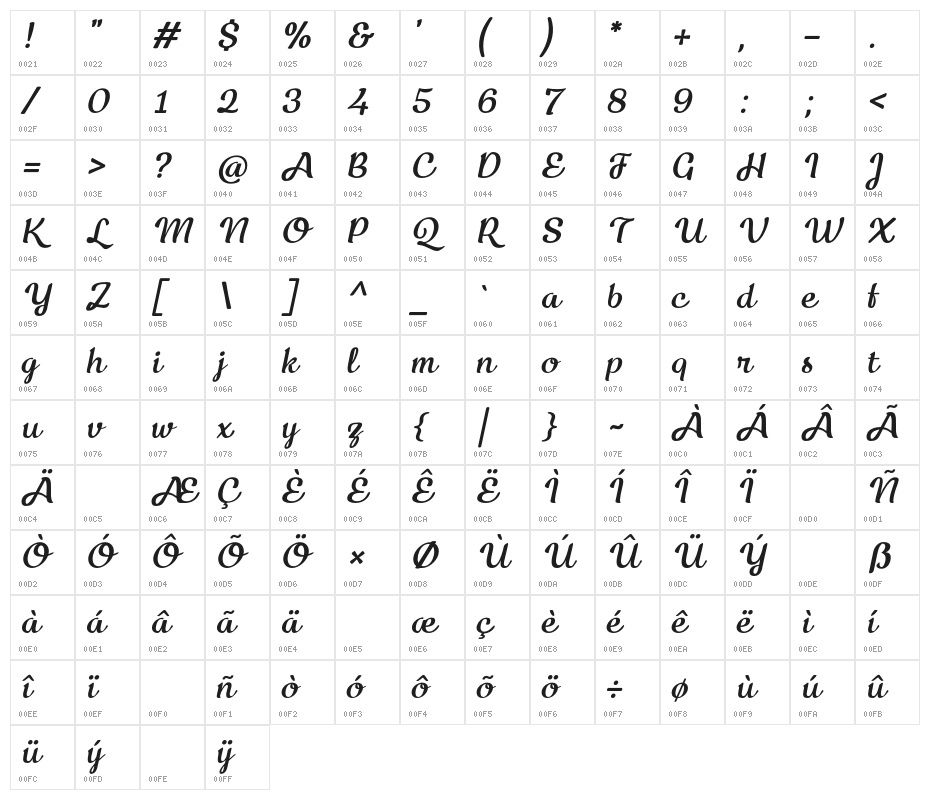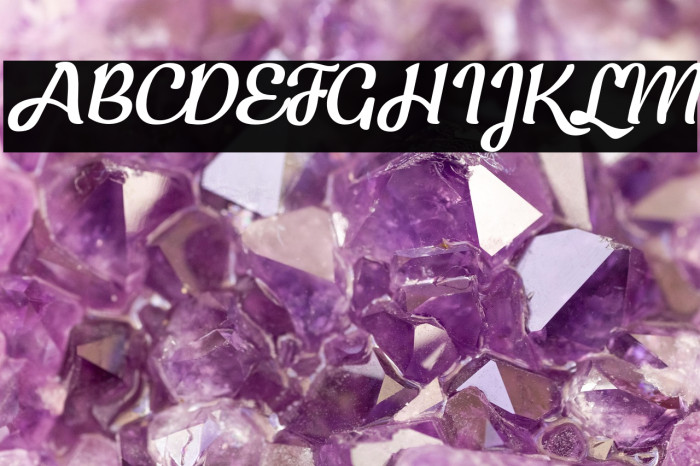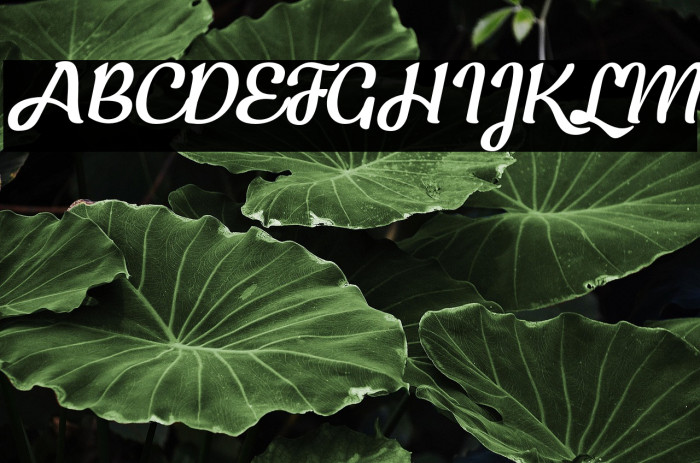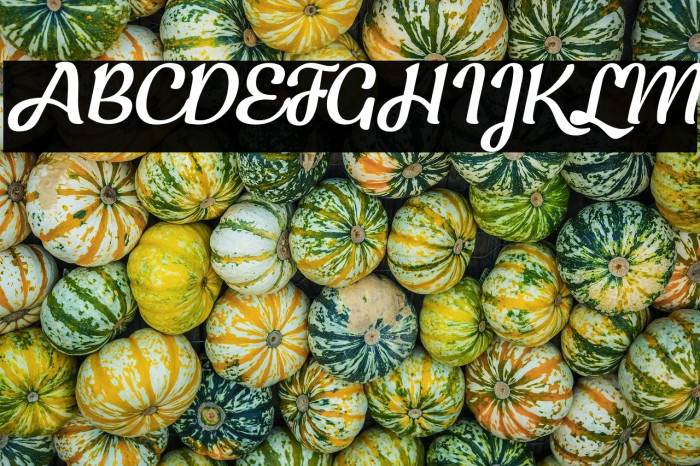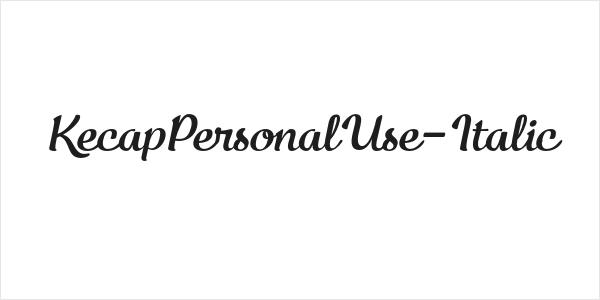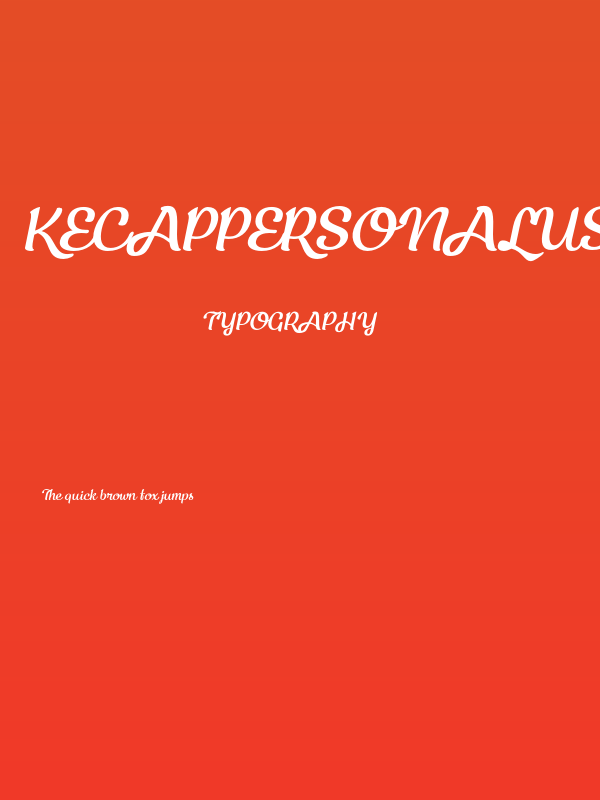
KecapPersonalUse-Italic Font
This font exhibits a flowing, cursive style with a distinct italic slant, giving it a dynamic and elegant appearance. The characters are interconnected, enhancing the script-like quality. Each letter features smooth curves and a consistent stroke width, contributing to its cohesive look. The uppercase letters are bold and prominent, while the lowercase letters maintain a graceful continuity. The numerals and special characters follow the same stylistic cues, ensuring uniformity across all glyphs. The overall design is both decorative and functional, making it suitable for various creative applications.
Use CaseLogos, Invitations, Decorative text
Proposed ProjectsIdeal for wedding invitations, greeting cards, branding, and elegant logo designs.